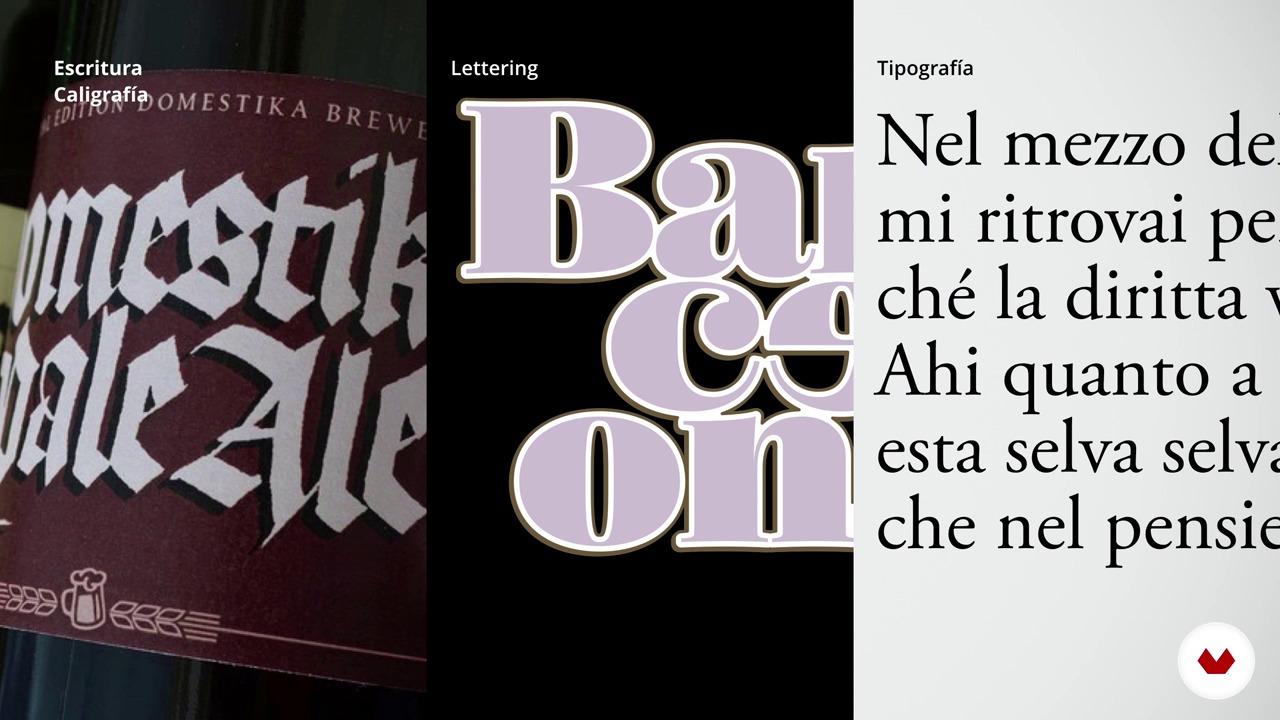
How to Choose Fonts
Choose a way to write the words
A course by Enric Jardí , Designer
About the video: Choose a way to write the words
“In this course we will see typography, but there are also other ways to write words, which is interesting to know.”
In this video lesson Enric Jardí addresses the topic: Choose a way to write the words, which is part of the Domestika online course: How to Choose Fonts. Discover what each type of font tells us and how to choose the right one for your project.
“Choose a way to write words In this lesson we are going to see exactly what typography is. We have different ways of writing words, but in this course we will focus, above all, in the type of writing that we can edit. That is, typography. However, at the beginning of this lesson you will see other forms that are good: lettering, calligraphy ... A number of things that are useful for our work, but they are not exactly typography. This course is primarily about typography. Typography is what Gutenberg invented. Pre-made letters that we use to compose text. In graphic design, most of the typog...”